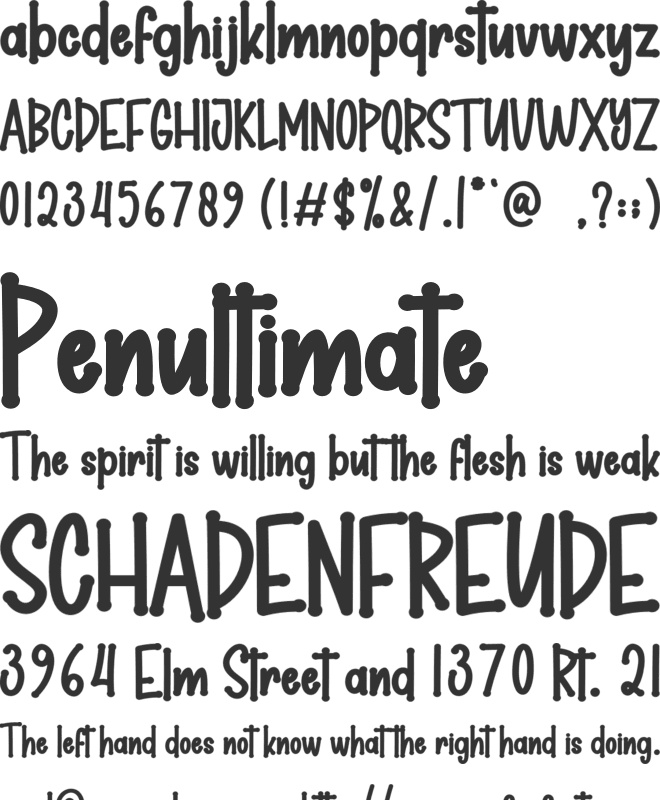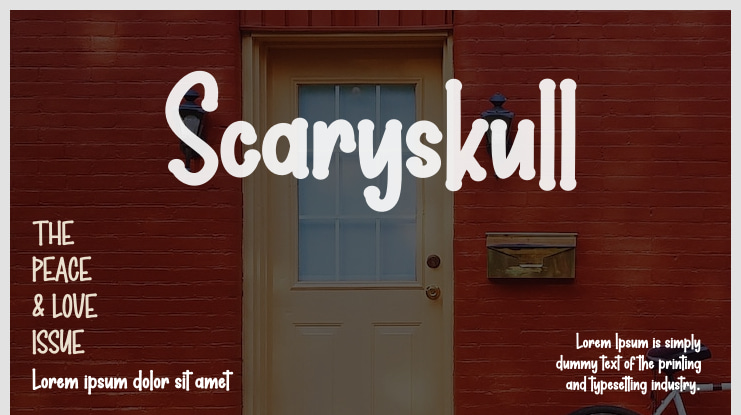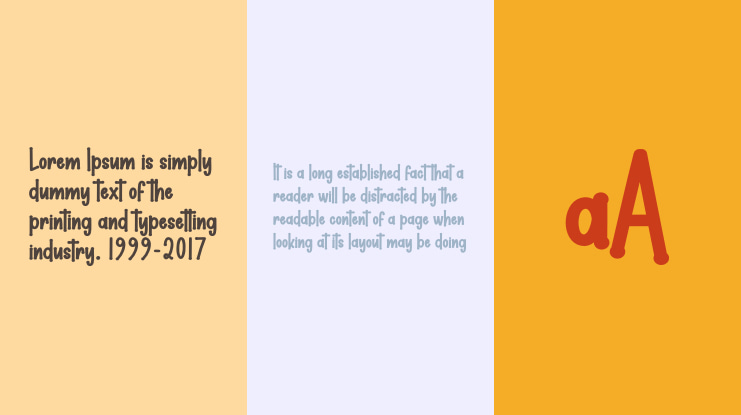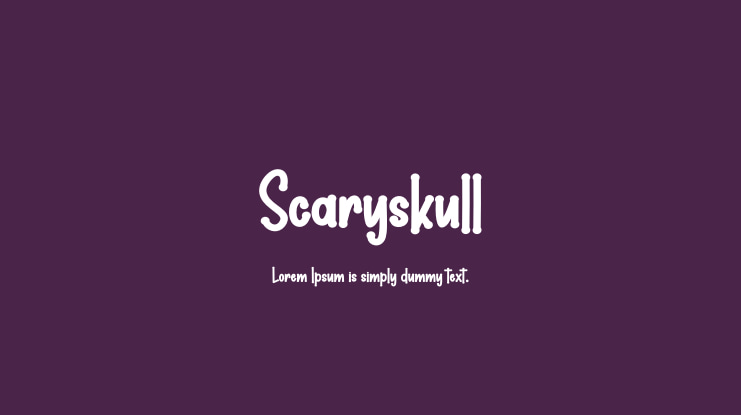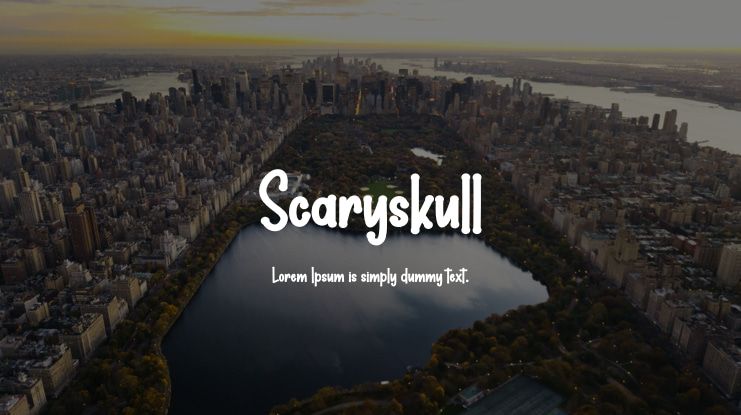
Scaryskull Font
Our latest style letters are ideal for wall displays, wedding invitations, social media post logos, advertisements, product packaging, product designs, labels, photography watermarks, invitations, and stationery. They suit any project requiring tasteful handwriting.
Scaryskull font preview